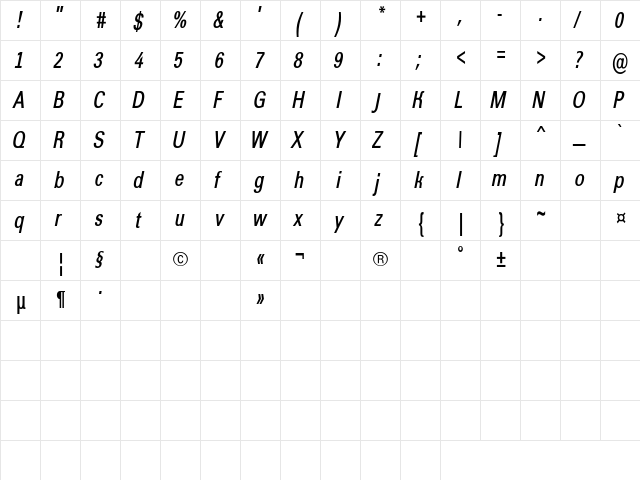
a_GroticCnDemi Italic Font Preview
a_GroticCnDemi Italic
Design Context for a_GroticCnDemi Typeface
a_GroticCnDemi offers clean, dependable letterforms without strong stylistic allegiance, making it a practical choice for designers who need flexibility. The dynamic lean of this cut emphasises speed and emphasis in any layout.
Pro Tip: Try a_GroticCnDemi for annotation and caption copy alongside an upright companion — the contrast in angle creates a dynamic but ordered typographic system.